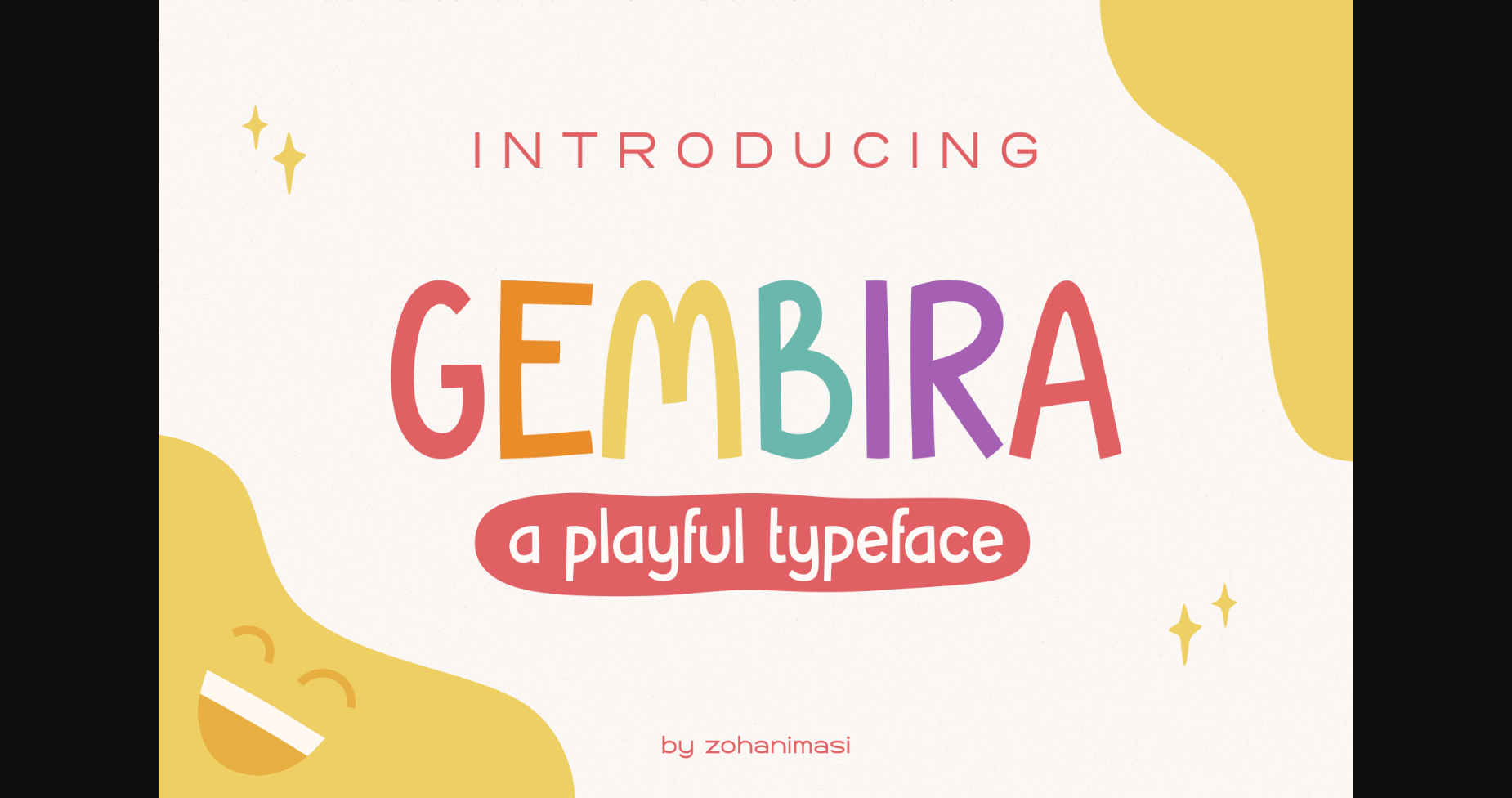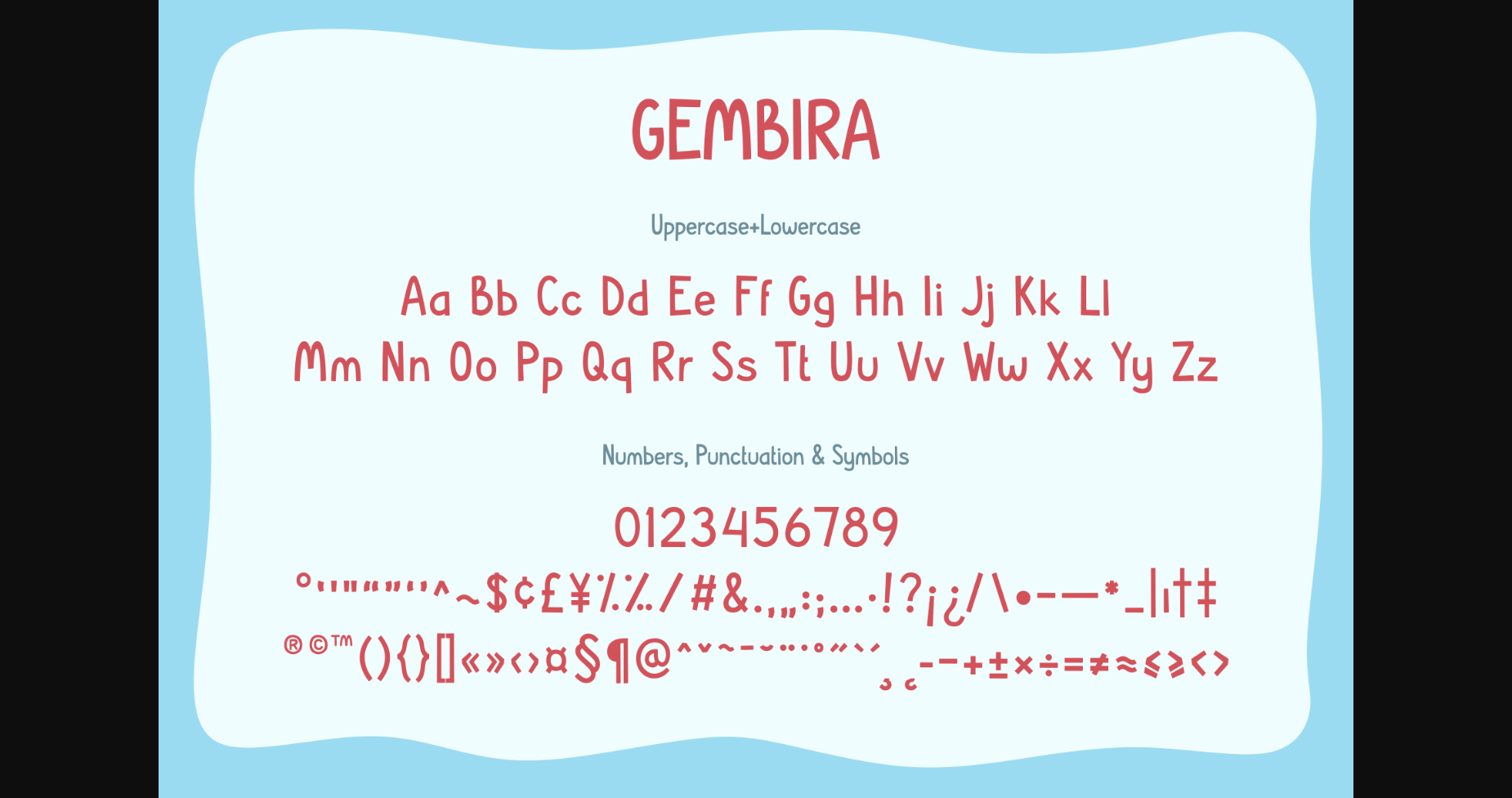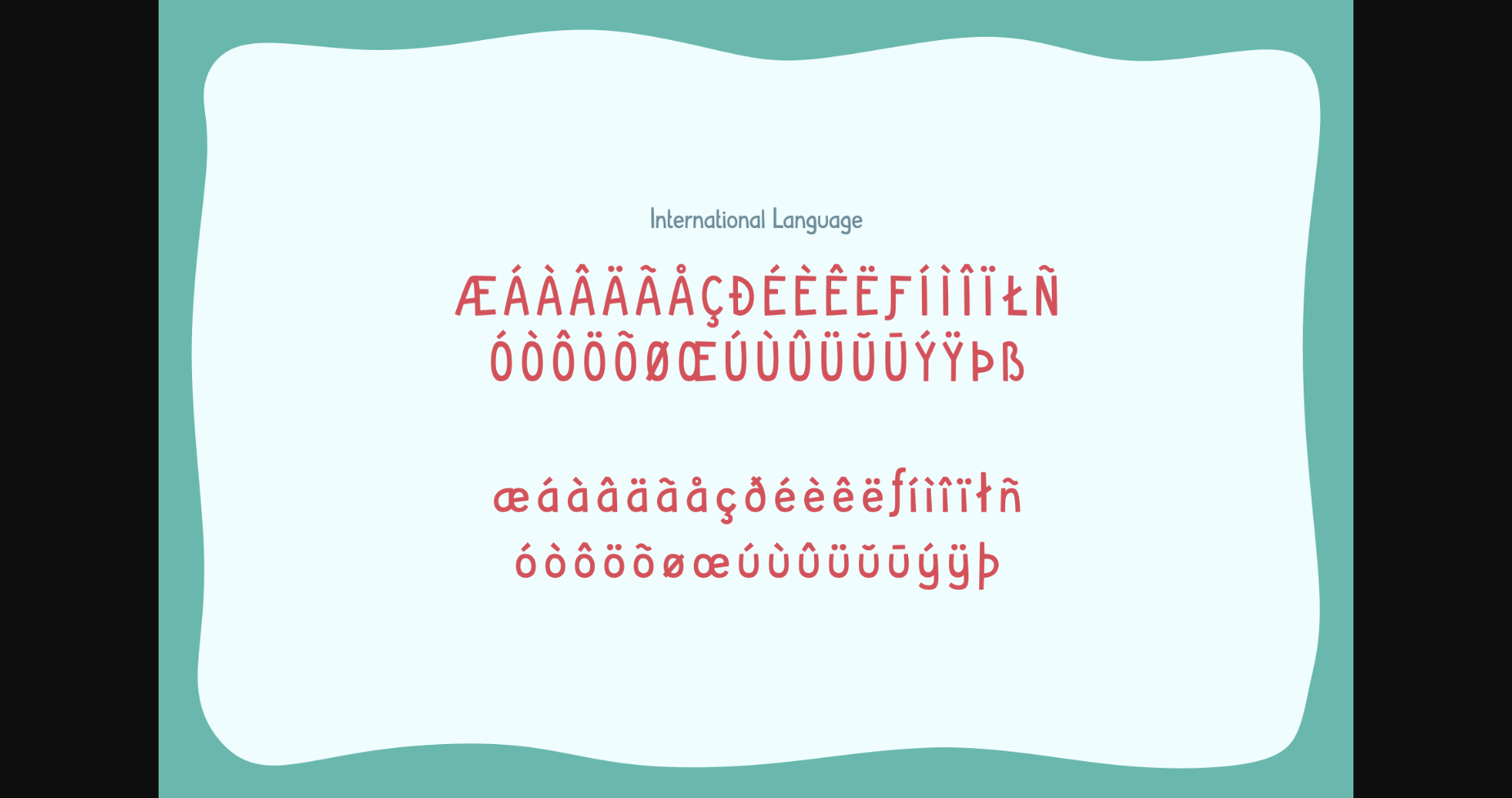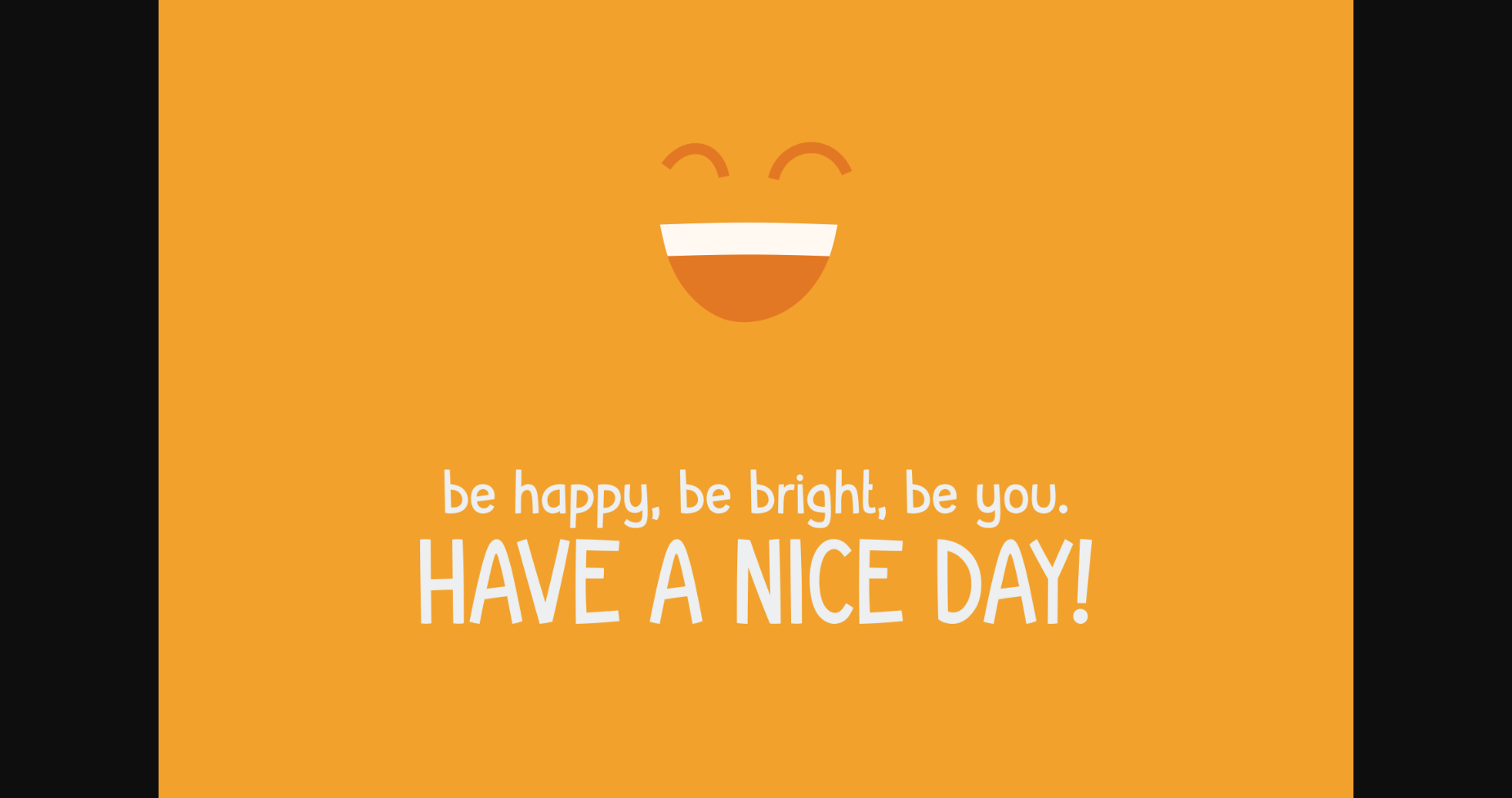
About Gembira Font
Gembira is a playful sans serif font. It is perfect for branding projects, logos, greeting cards, social media posts, headings, flyers, advertisements, product packaging, product designs, label, printed quotes, book covers, apparel designs, album covers, etc.